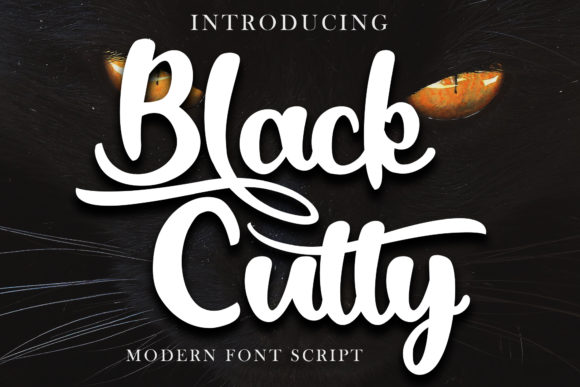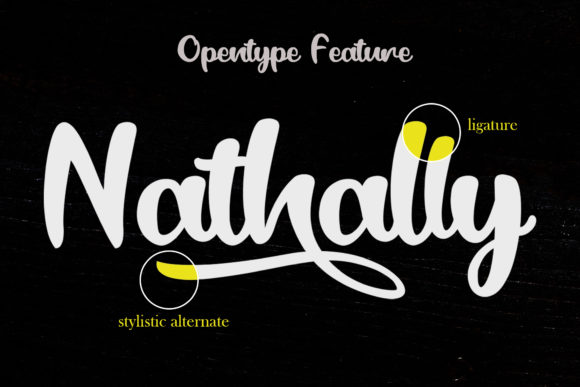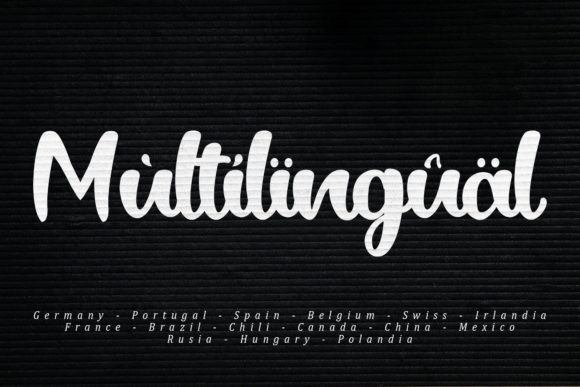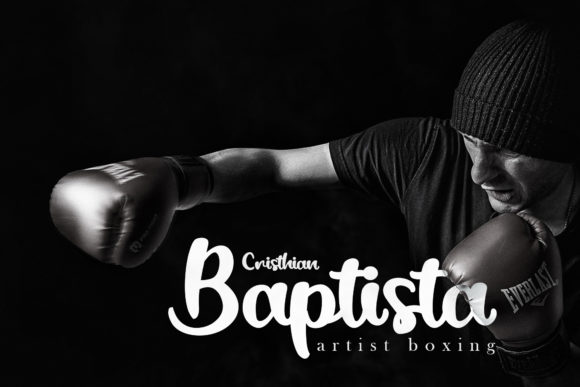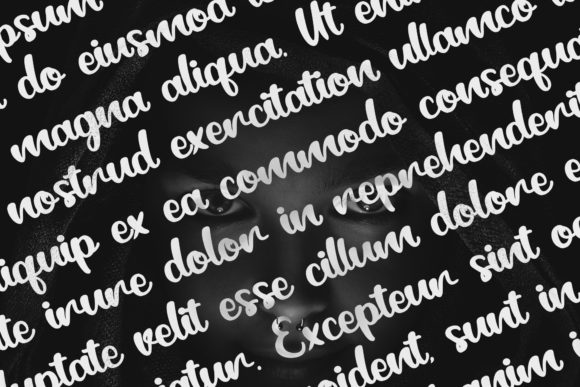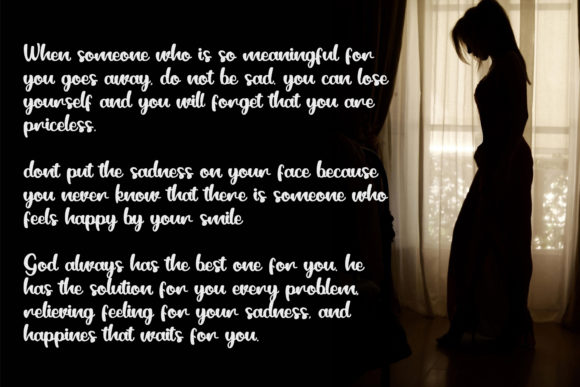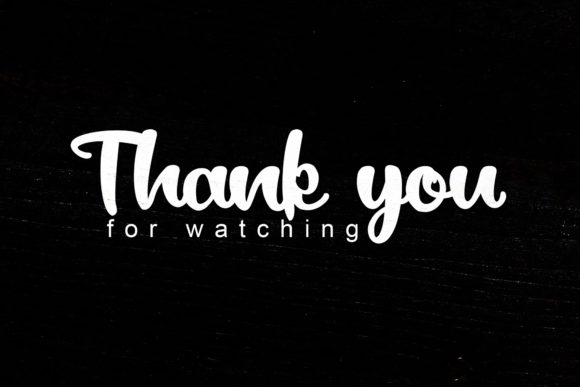
Black Catty Script Font
About Black Catty Script Font
Black Catty is a fun and cool script with an authentic vibe. Use it to add a personal touch to any design project!